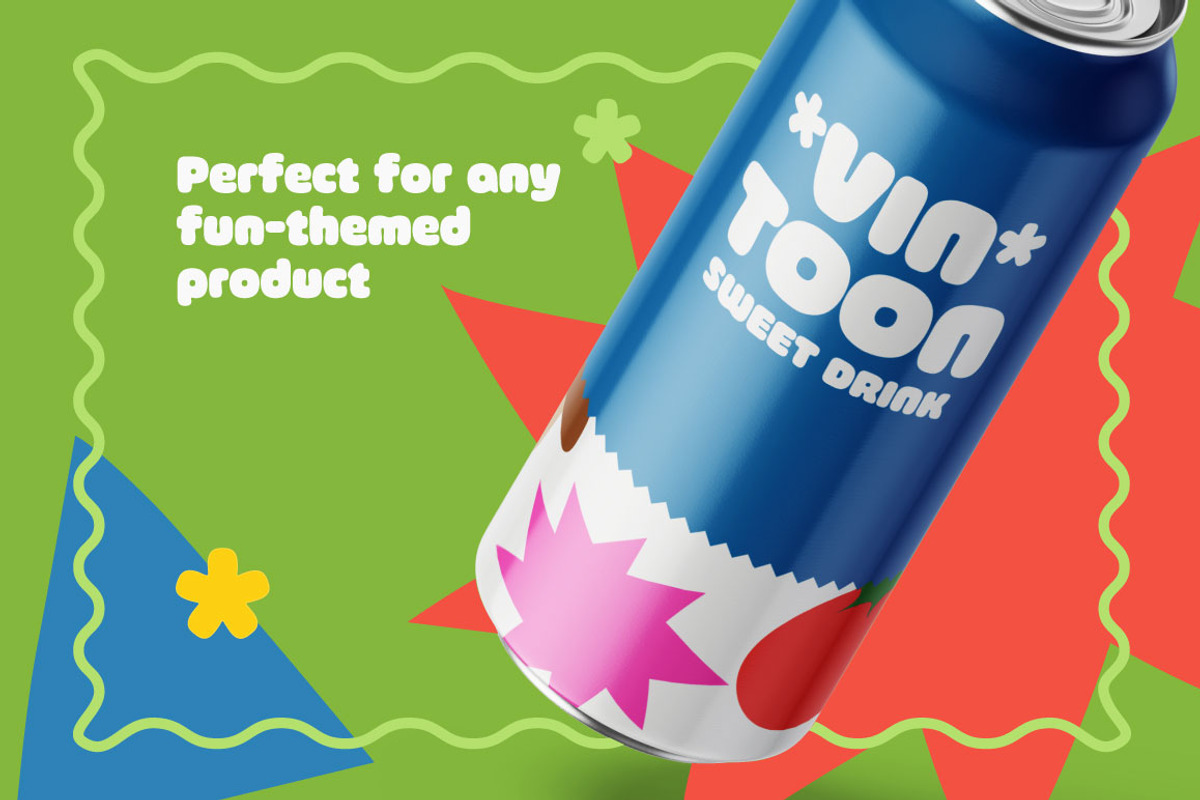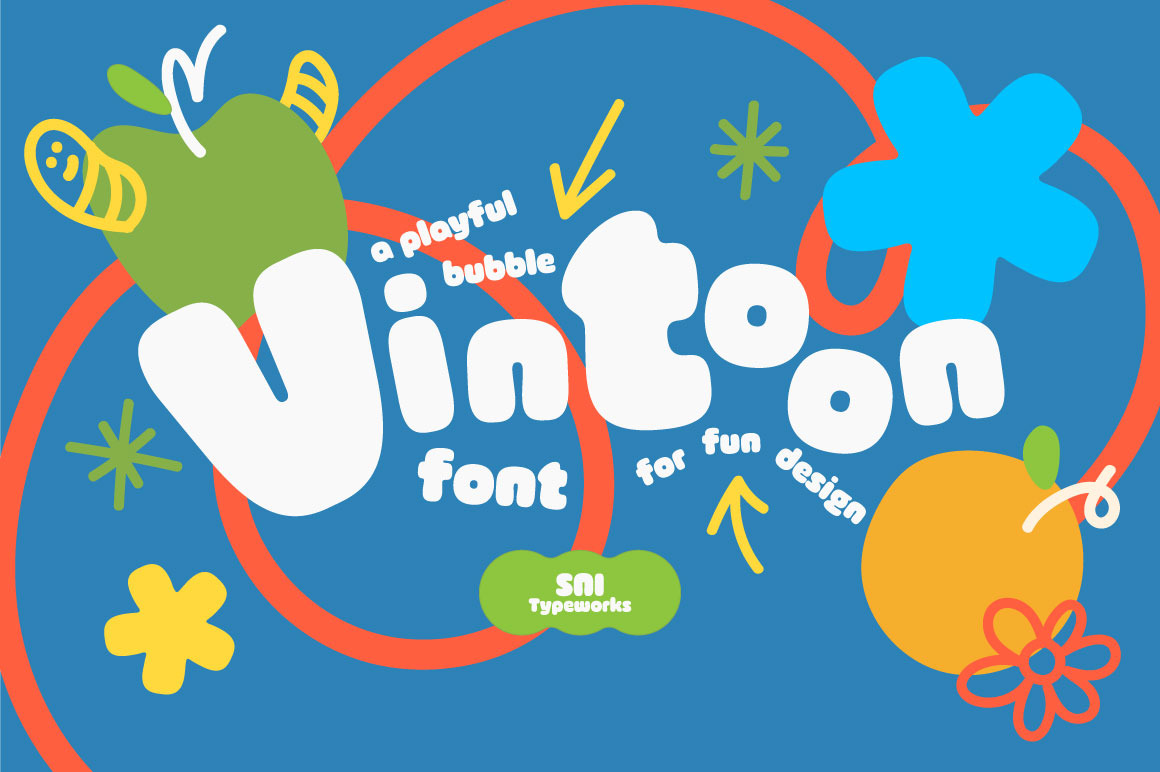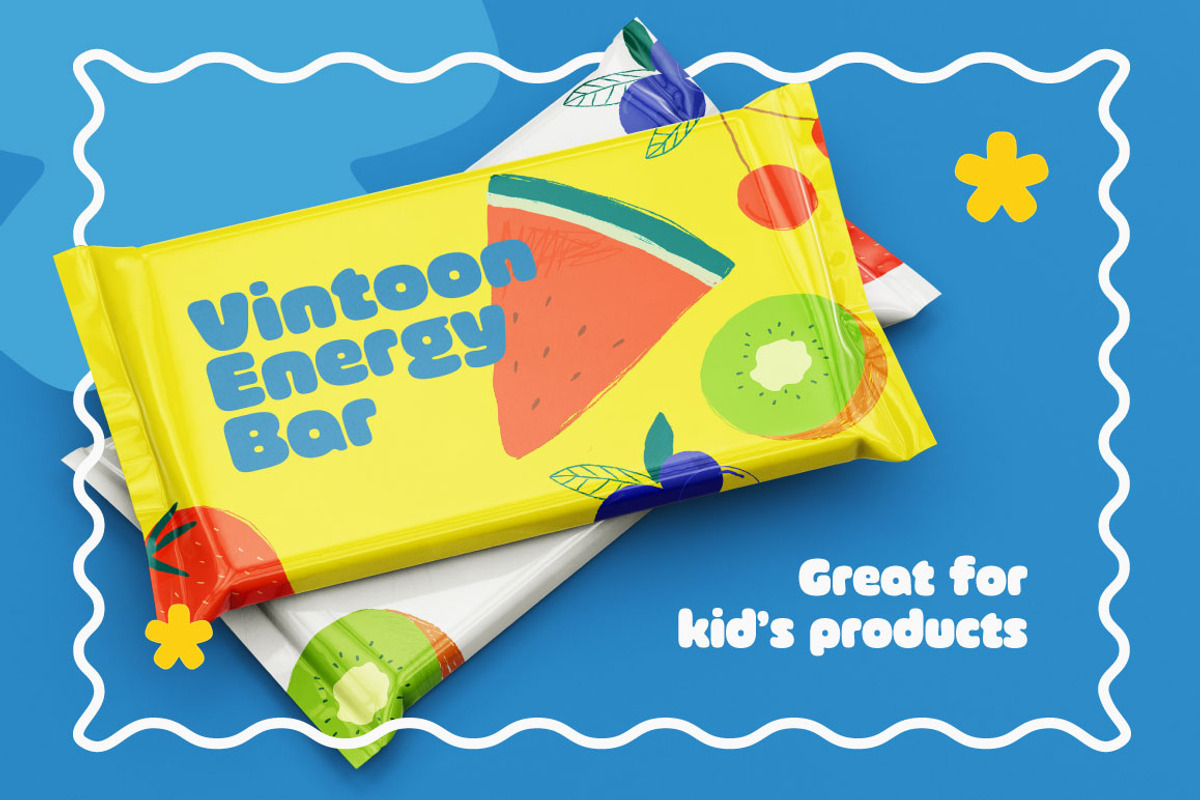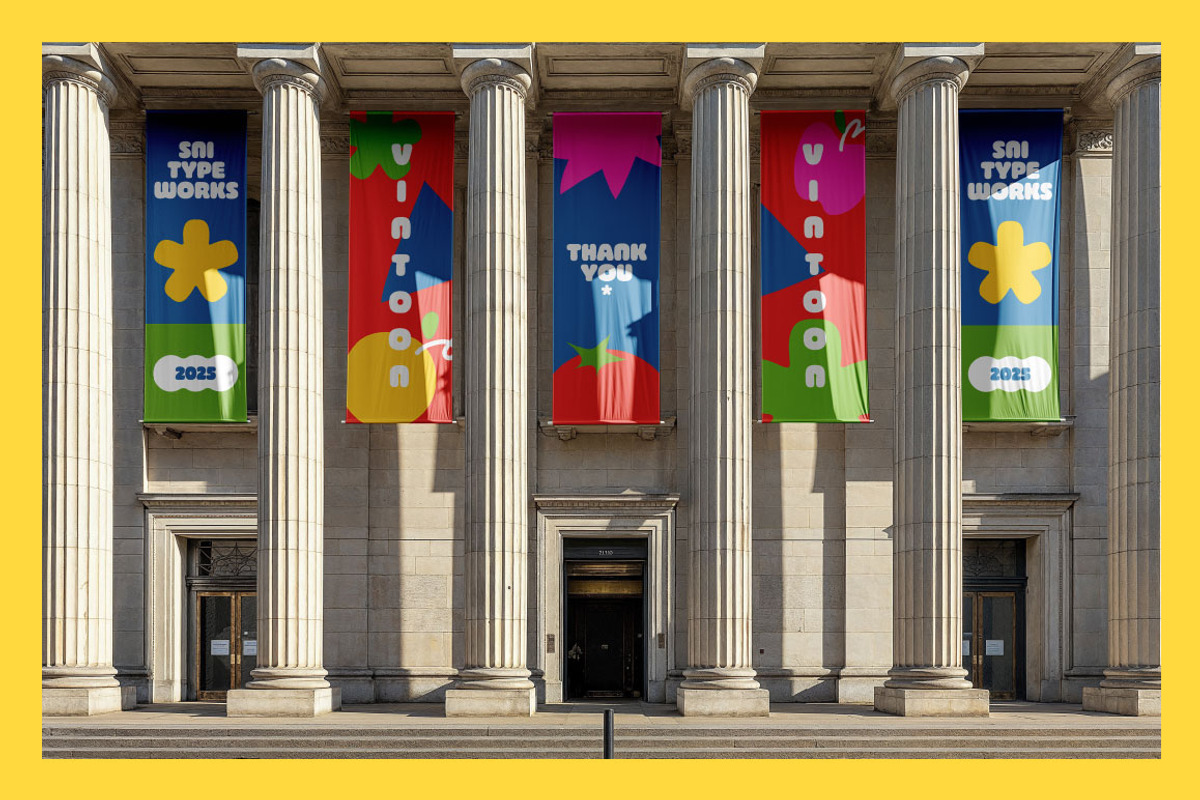
Vintoon – Playful Bubble Font
Vintoon is a cheerful bubble font designed to bring joy and playfulness into your creative work. Its soft, rounded letterforms and bold presence make it instantly friendly, approachable, and full of character. Inspired by classic cartoon lettering and retro signage, Vintoon combines nostalgic charm with a modern, versatile twist.
Perfect for children’s projects, posters, comics, packaging, logos, and social media graphics, this font is all about fun and energy. Its quirky curves and smooth shapes give designs a sense of movement and positivity, making your text pop with personality.
Whether you’re creating colorful branding, lively editorial headlines, or playful product packaging, Vintoon is ready to brighten up your work. It’s simple, bold, and versatile — a bubble font that always delivers smiles.